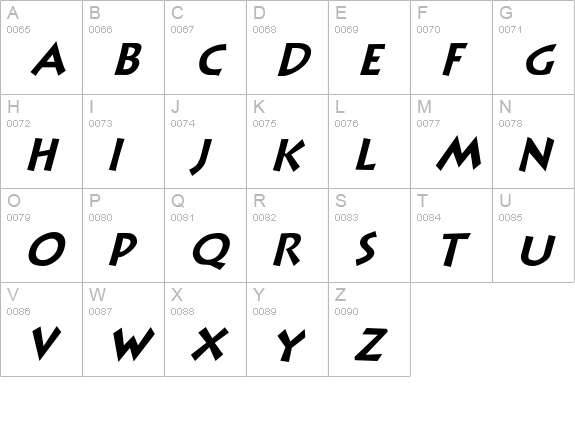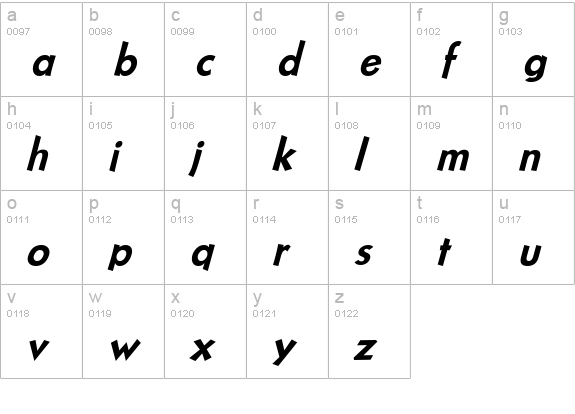
NuevoLitho PlainItalic Font Details
The NuevoLitho PlainItalic font is a sleek and elegant typeface that exudes modernity and sophistication. Its italicized style adds a touch of flair and creativity to any design project. The clean lines and balanced proportions of NuevoLitho PlainItalic make it a versatile choice for a wide range of applications, from branding to editorial design. What makes this font even more appealing is that it is available for free download at FontsMarket.com. This means that you can easily access this high-quality typeface without any cost, making it a valuable addition to your font collection. Whether you're a professional designer looking for a new go-to typeface or a hobbyist experimenting with different fonts, NuevoLitho PlainItalic is sure to impress with its refined aesthetic and effortless legibility. Elevate your projects with this stylish and versatile font today.